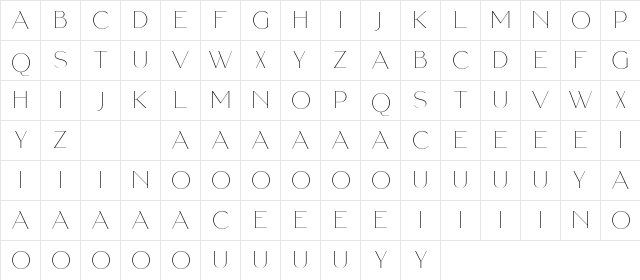
PalmBeach Trial Regular
Design Context for PalmBeach Trial Typeface
PalmBeach Trial is a composed and adaptable typeface that performs quietly and consistently across a wide range of design contexts.